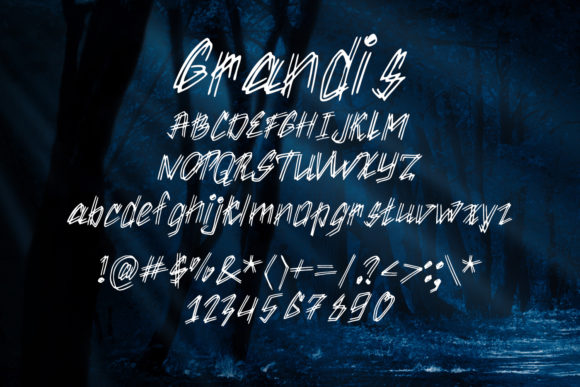
Discover the Unique Charm of Grandis Font: Elevate Your Designs with this Trendy Display Font
In the world of typography, a font can make or break a design. It’s the perfect blend of style, elegance, and personality that can elevate a creation from ordinary to extraordinary. If you’re a designer, craft, or simply a font enthusiast, you’re in for a treat. Say hello to Grandis Font, an incredibly unique and trendy looking display font that’s about to become your new favorite asset.
The Grandis Advantage: Uniqueness and Versatility
Grandis Font is not your average font. Its unique design and trendy aesthetic make it a standout in the world of typography. Whether you’re working on a branding project, a website, or a craft project, Grandis has the potential to elevate any creation. Its versatility is unmatched, making it suitable for a wide range of topics and themes. From modern and sleek to elegant and sophisticated, Grandis can adapt to any design style.
What Makes Grandis Font So Special?
So, what sets Grandis apart from other fonts? Here are a few key features that make it an incredibly asset to your font library:
- Unique Design: Grandis boasts a one-of-a-kind design that’s both modern and stylish. Its distinctive curves and lines make it a true showstopper.
- Trendy Aesthetic: Grandis is on-trend with the latest design styles, ensuring your creations look fresh and contemporary.
- Display Font: As a display font, Grandis is perfect for headlines, titles, and other attention-grabbing elements.
- Versatility: Grandis can be used across various platforms, from digital to print, and in a range of design applications.
How to Use Grandis Font in Your Designs
Now that you’re excited about Grandis, let’s explore some ways to incorporate it into your designs:
Branding and Logo Design
Grandis Font is perfect for creating bold and eye-catching logos that make a statement. Its unique design ensures your brand stands out from the competition.
Web Design
Use Grandis to create stunning headlines and titles that grab visitors’ attention. Its trendy aesthetic ensures your website looks modern and fresh.
Crafting and DIY Projects
Grandis Font is also ideal for crafters and DIY enthusiasts. Use it to add a personal touch to your projects, such as handmade cards, invitations, or scrapbooking.
Tips for Getting the Most Out of Grandis Font
To maximize the potential of Grandis, here are some expert tips:
- Experiment with Colors: Grandis looks stunning in bold and bright colors. Don’t be afraid to try out different color combinations.
- Play with Sizes: Grandis is a display font, so don’t be shy to use it in large sizes to make a statement.
- Mix and Match: Combine Grandis with other fonts to create a unique and visually appealing typography.
In conclusion, Grandis Font is an incredibly unique and trendy looking display font that’s sure to elevate any creation. Its versatility, unique design, and trendy aesthetic make it an asset to any font library. Whether you’re a designer, crafter, or simply a font enthusiast, Grandis is a must-have font that’s sure to inspire your next creative project.